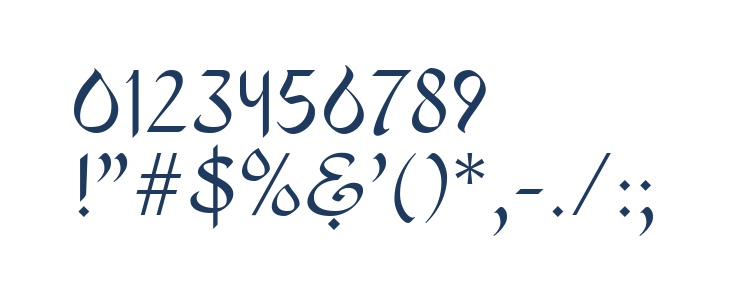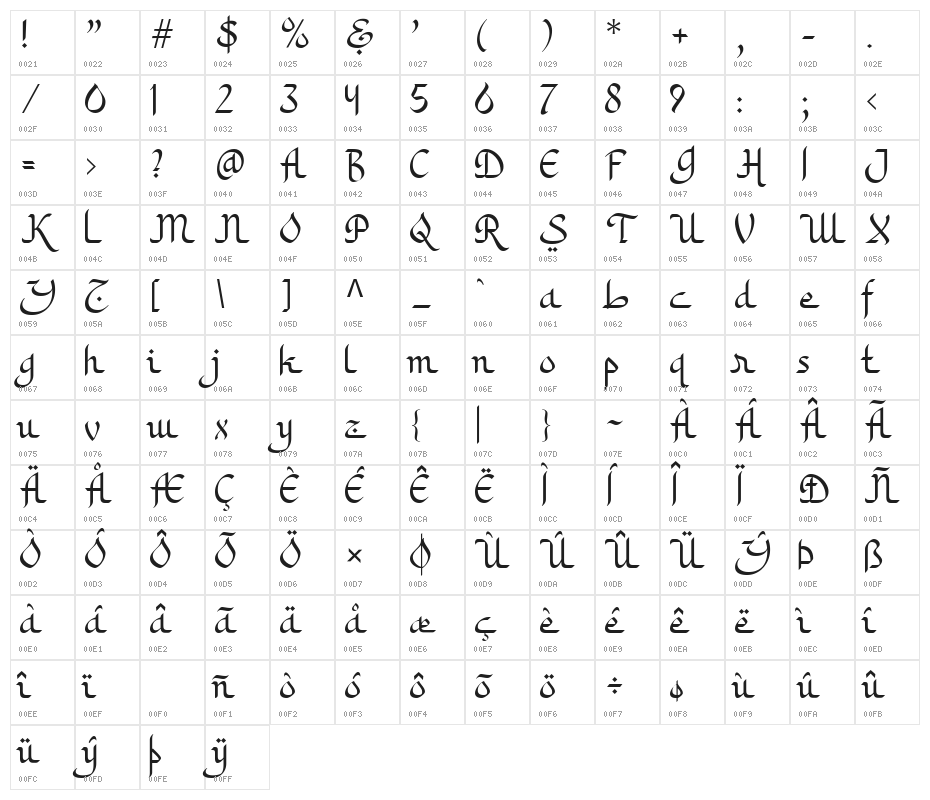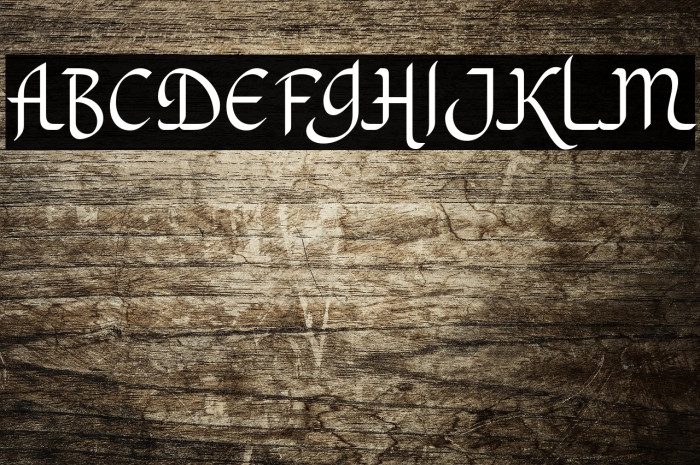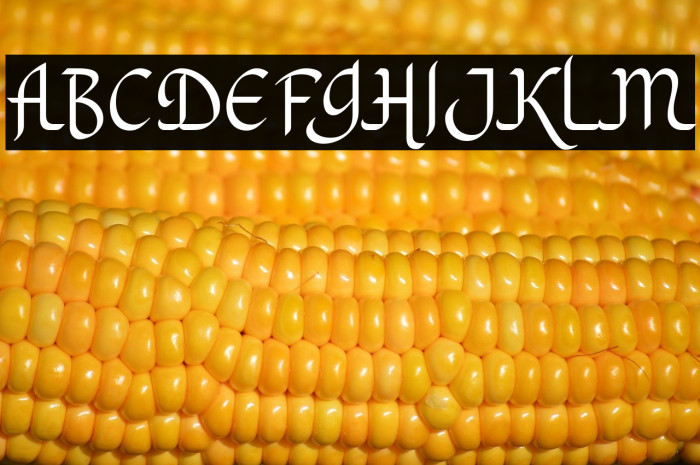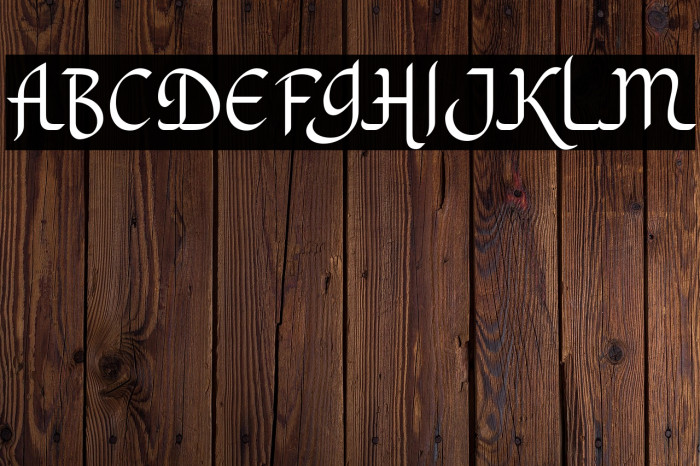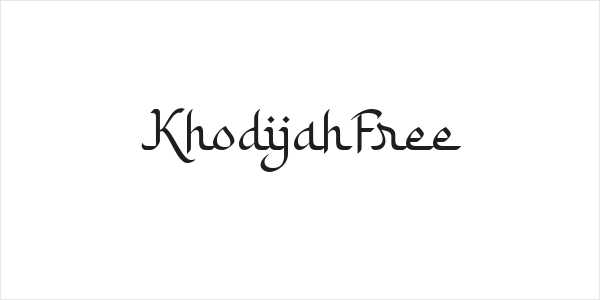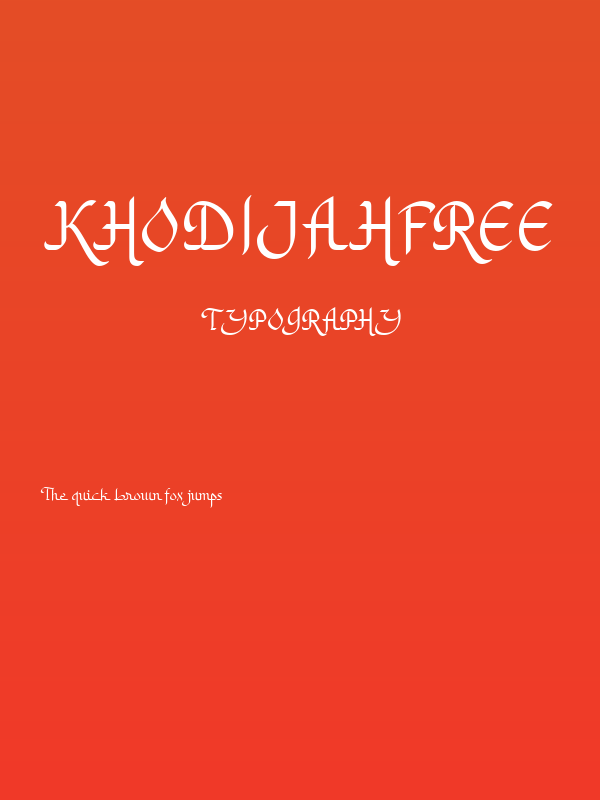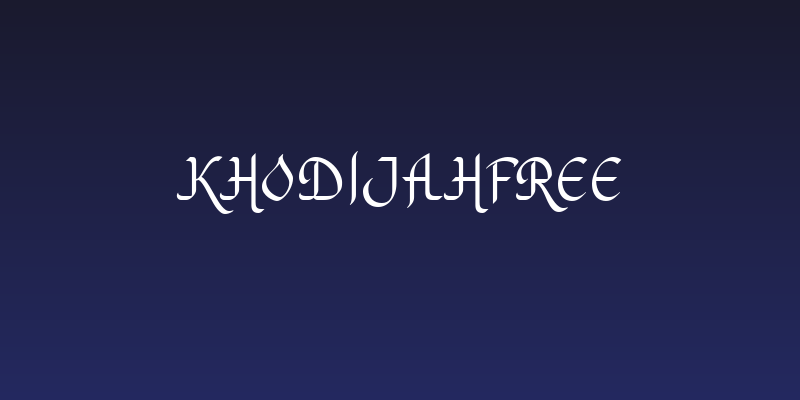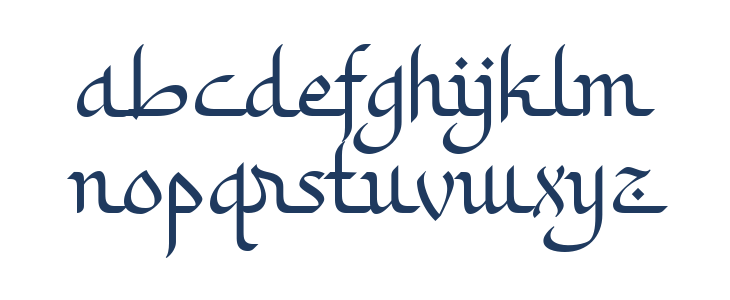
KhodijahFree Font
KhodijahFree Description
This font features a distinctive and elegant script style with a calligraphic influence. The uppercase letters exhibit a graceful flow with subtle curves and flourishes, while the lowercase letters maintain a consistent rhythm and balance. The numerals are designed with a similar flair, offering a harmonious blend with the alphabet. Special characters are crafted with attention to detail, enhancing the font's overall aesthetic. The font's unique style makes it suitable for creative and artistic projects, adding a touch of sophistication and charm.